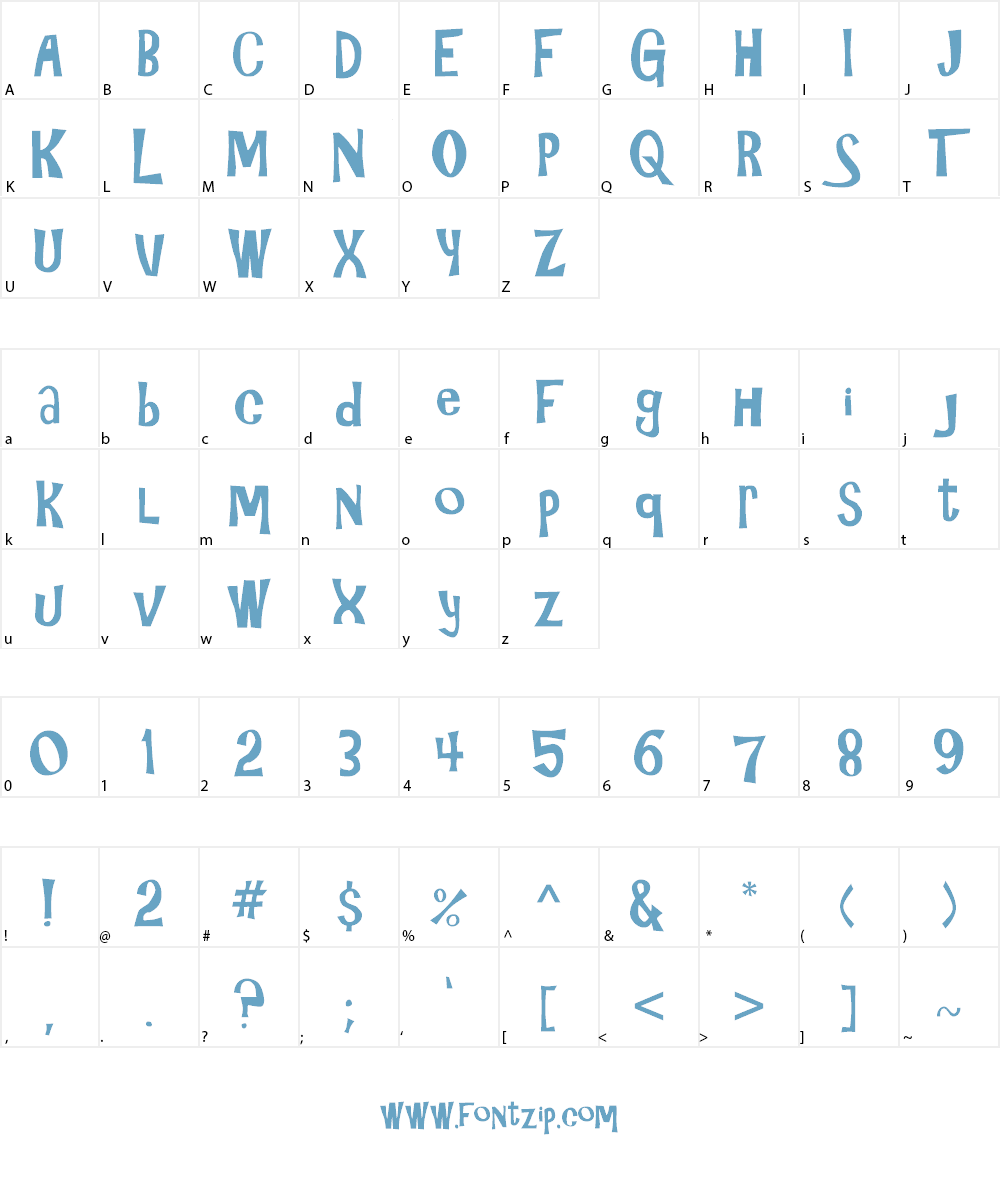
Gilligan's Island is a font based on the show of the same name (of course).
IT was created from scratch by recreating the letters of the opening credits
and the main title logo. This font is also perfect for giving your documents
that tropical, fun and informatl look. It is best at larger point sizes.
Gilligan's Island Font is a complete font with full punctuation, specialty
characters and numbers. In addition there is a small treat for all you
castaways, the cartoon characters are alos included in this font! The
castaways reside in the extended key combonations.